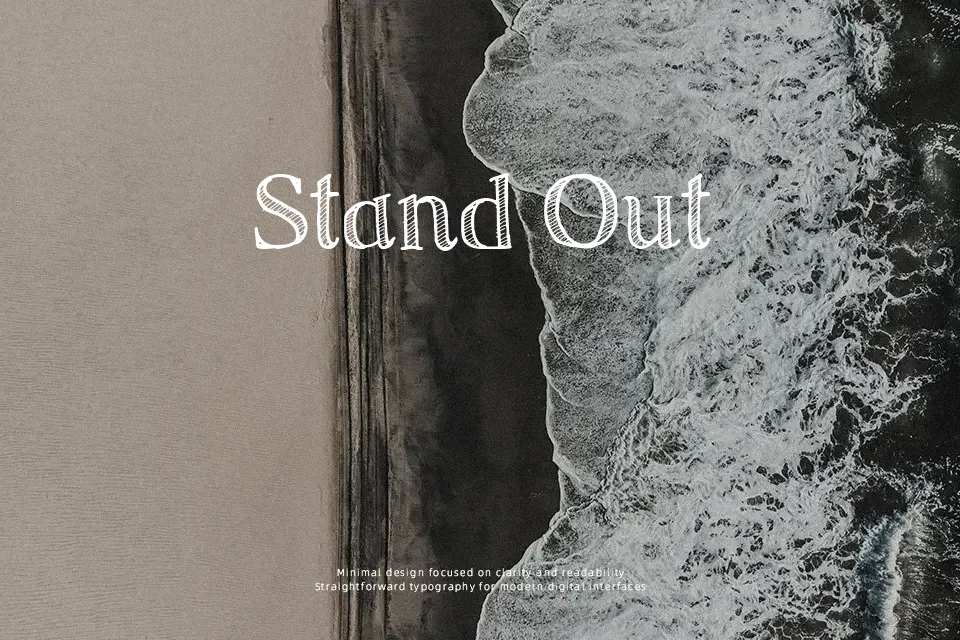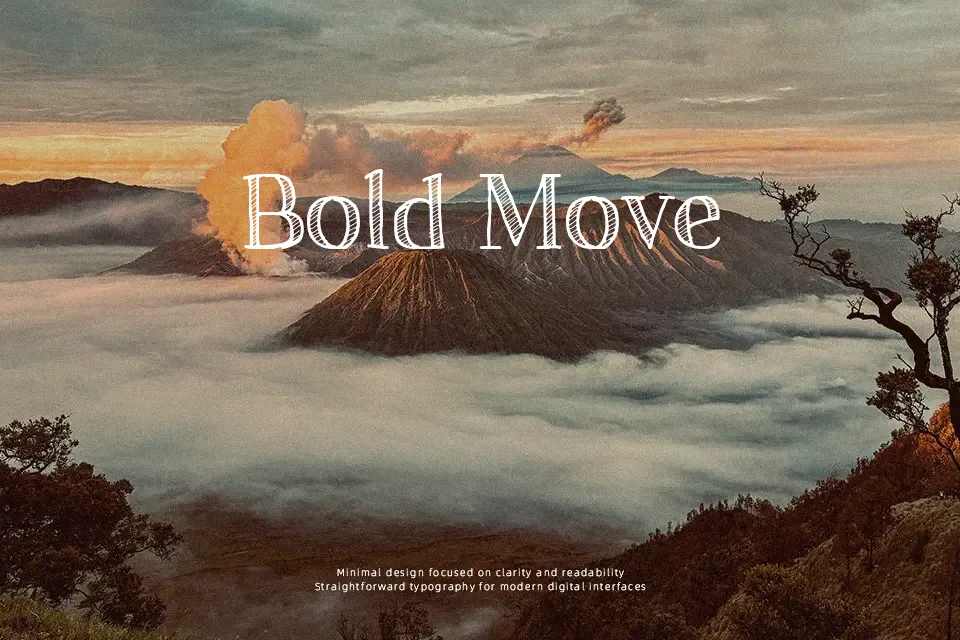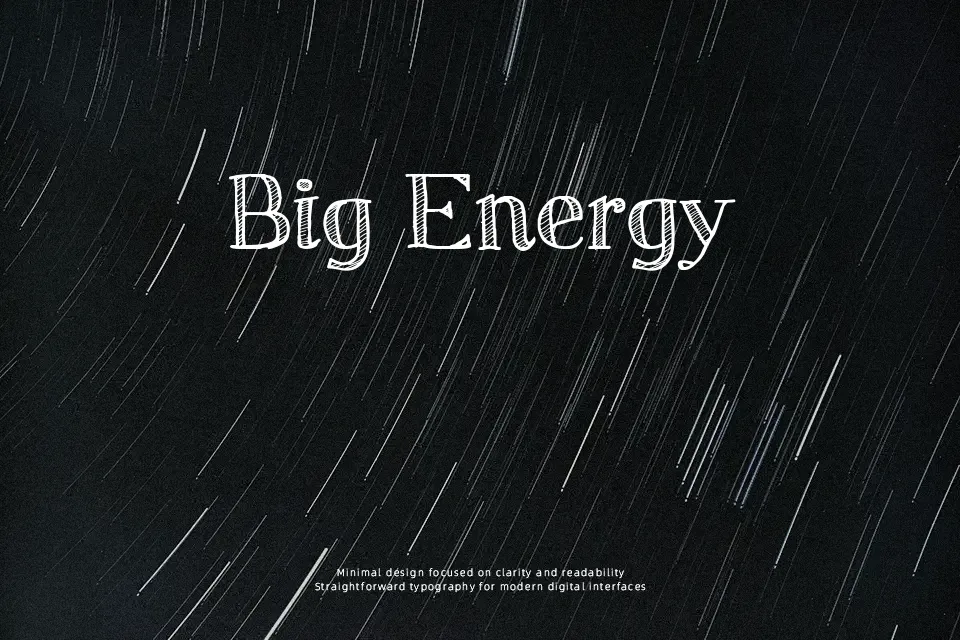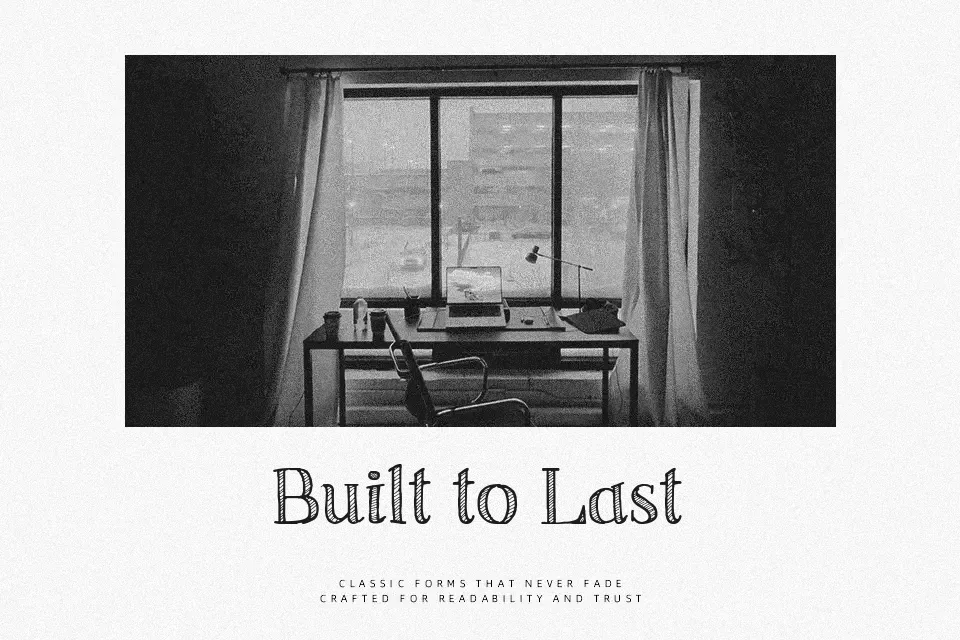
Sketch Serif Font
Sketch Serif Font exhibits traditional roman letterforms filled with detailed pencil cross-hatching and textured interior strokes. The typeface features moderate stroke weight, defined bracketed serifs, and regular vertical proportions that preserve glyph recognition. Spacing between characters remains comfortably open, ensuring individual letters do not blur together in prominent titles. While the letterforms command attention in poster headlines, apparel graphics, and merchandise packaging, the dense sketched shading degrades legibility at small point sizes. Dense interior detailing makes the design unsuitable for multi-line body paragraphs or compact mobile interfaces. For maximum graphic impact, designers should reserve the typeface for prominent display applications.
Best For: vintage poster headlines, rustic packaging labels, restaurant chalkboard menus, apparel merchandise graphics
Not Ideal For: long body paragraphs, small mobile UI labels, technical documentation, dense editorial columns
Perfect for branding, headline, and packaging, with a artistic and decorative style.